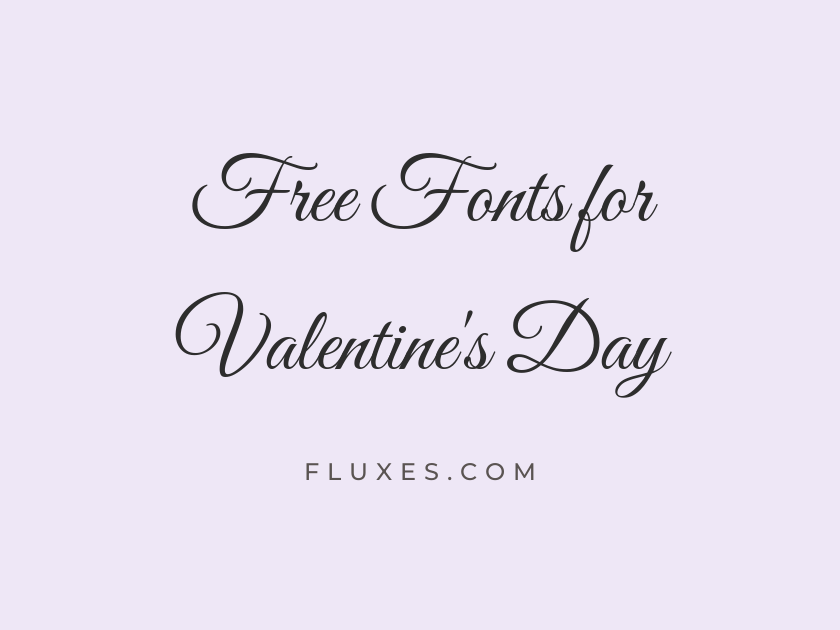
64 Best Free Fonts for Valentine’s Day
Valentine’s Day design lives or dies on typography. A heart graphic or a rose illustration can only carry so much romance; it is the lettering, the script that curls like a ribbon or the serif that feels like an old love letter, that actually sells the feeling. Whether you are building a greeting card, a bakery box for conversation hearts, a wedding-adjacent invitation, or a simple Instagram graphic for a February sale, free Google Fonts can cover nearly every romantic mood, from breathless calligraphy to playful, candy-colored display type.
The fonts gathered here span delicate wedding-style scripts, warm handwritten notes, elegant serifs for something more grown-up, and a few playful display faces for lighthearted valentines aimed at kids or casual brands.
1. Great Vibes
Flowing and long-limbed, this is the script so many wedding and Valentine’s designers reach for first. Its tall ascenders and loose connections give it a breathless, romantic energy that works beautifully on invitations, cards, and gift tags, though it is best kept large since fine strokes can vanish at small sizes.
2. Alex Brush
A brush script with a bit more weight and confidence than most delicate calligraphy fonts, giving it a warmer, more grounded feel. It pairs nicely as an accent word layered over a clean sans serif headline.
3. Allura
Slim, elegant, and slightly formal, Allura reads like the calligraphy on a fine letterpress invitation. It suits short phrases best; long paragraphs quickly turn illegible.
4. Parisienne
There is a soft, rounded charm here that feels less bridal than Great Vibes and more like a handwritten postcard from Paris. It sits comfortably on pastel backgrounds and rose-gold foil designs alike.
5. Sacramento
Thin, casual, and a little retro, Sacramento evokes 1950s greeting card lettering more than formal calligraphy. It is an easy pick for logo-style monograms or short love notes.
6. Pinyon Script
This one leans traditional and a touch old-fashioned, closer to engraved wedding stationery than a casual card. Its narrow letterforms make it a strong choice for elegant, formal Valentine’s invitations rather than playful social graphics.
7. Tangerine
Extremely delicate and airy, Tangerine is one of the thinnest scripts in the Google Fonts library. It looks stunning printed large on cream cardstock but struggles badly on screens under about 24 pixels, so reserve it for headlines rather than body text.
8. Mrs Saint Delafield
Loose, sketchy, and full of personality, this script looks like it was dashed off with a fountain pen between love letters. It brings a lived-in, personal quality that more polished scripts lack.
9. Cookie
Cookie has a soft, rounded sweetness that suits its name, casual and friendly rather than formal. It reads well even at moderate sizes, making it a practical script for packaging and product labels aimed at a Valentine’s gift market.
10. Yellowtail
Bouncy and slightly retro, Yellowtail has a confident, marker-drawn quality that feels more playful than precious. It suits casual valentines, cafe signage, or candy branding better than formal wedding work.
11. Satisfy
A relaxed, everyday script with just enough looseness to feel handwritten rather than printed. It is versatile enough to use for both body text on a card and short display phrases.
12. Lovers Quarrel
The name alone makes this an obvious pick for the occasion. Its tight, romantic swashes and vintage engraving feel suit anything referencing old-fashioned courtship or classic love letters.
13. Rouge Script
Rouge Script has a confident, slightly bold stroke that keeps it legible at smaller sizes than most calligraphy fonts manage. It works well for card headlines that still need to be read quickly on a phone screen.
14. Petit Formal Script
As the name suggests, this is a tidier, more restrained script than most on this list, closer to formal penmanship than flourish-heavy calligraphy. It suits understated, grown-up Valentine’s stationery.
15. Herr Von Muellerhoff
Dramatic, wide swashes give this script a theatrical, old-world feel, almost like a wax-sealed envelope come to life. Use it sparingly, as a single accent word rather than a full sentence.
16. Marck Script
Marck Script sits comfortably between casual and formal, with rounded, friendly letterforms that stay readable at smaller sizes. It is a dependable workhorse script for cards, menus, and packaging alike.
Always test scripts at the actual size they will be used. Many delicate calligraphy fonts look gorgeous large and turn to mush in a 12px email footer.